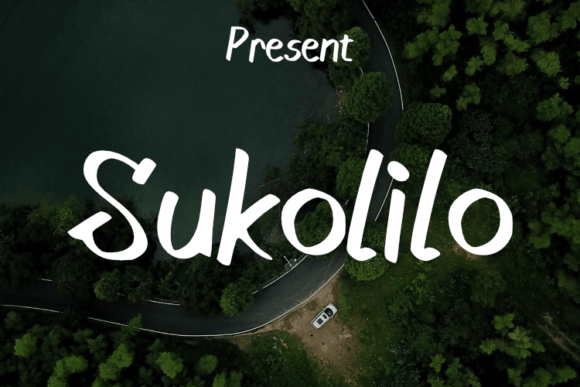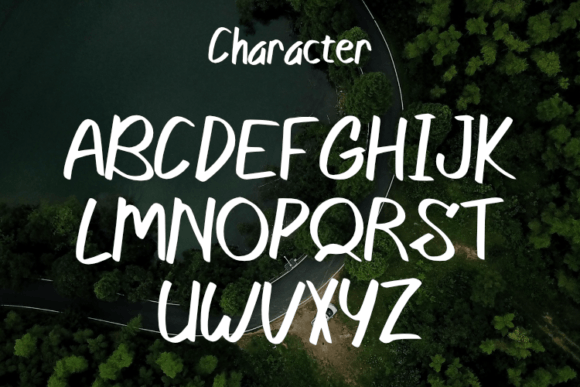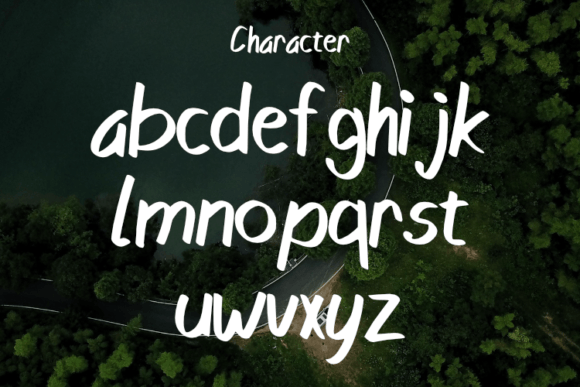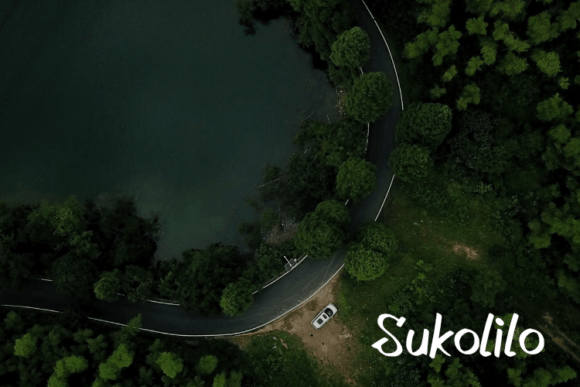
Sukolilo Font
“Sukolilo” is a script typeface that embodies simplicity and modernity. Its clean and straightforward style, combined with a touch of elegance, makes it a perfect choice for a variety of design applications. Whether used for elegant and luxurious logos, book or movie design titles, fashion brands, magazines, clothing, fonts, quotes, or any other creative project, “Sukolilo” adds a sense of sophistication and contemporary flair.
**Simple and Modern Elegance**: “Sukolilo” stands out with its simple yet elegant design. Its clean lines and uncluttered appearance create a modern and refined aesthetic. The font’s simplicity adds a touch of sophistication, making it suitable for projects that require a sleek and contemporary look.
**Versatile Design Applications**: The versatility of “Sukolilo” makes it suitable for a wide range of design applications. From logos and titles to fashion brands, magazines, and quotes, the font adapts effortlessly to various contexts. Its modern style enhances the visual impact of any project, ensuring a polished and professional presentation.
**Elegance for Luxury Brands**: Particularly well-suited for luxury brands, “Sukolilo” adds an elegant touch to branding materials. Its graceful letterforms and refined appearance elevate the brand’s perception, conveying a sense of exclusivity and premium quality. Whether used in fashion, cosmetics, or high-end products, the font enhances the overall luxurious appeal.
**Contemporary and Timeless**: While “Sukolilo” embraces contemporary design trends, its simplicity and elegance give it a timeless quality. This balance between modernity and timelessness ensures that the font remains relevant and appealing, making it a reliable choice for long-lasting and enduring designs.
In summary, “Sukolilo” is a typeface that combines simplicity, elegance, and modernity. Its clean and stylish design, along with its versatility, makes it a valuable asset for designers aiming to create sophisticated and contemporary visual experiences. By incorporating “Sukolilo” into your projects, you infuse them with a sense of modern elegance, ensuring they make a lasting impression on viewers. Let “Sukolilo” be the epitome of chic sophistication in your designs, adding a touch of contemporary elegance to every creative endeavor it graces.